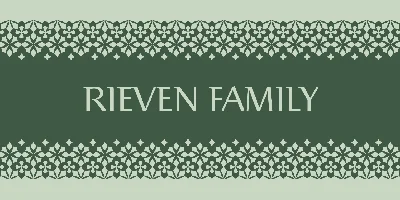
Rieven Font
Rieven Font – A sleek, modern sans-serif with geometric precision and minimalist elegance. Perfect for contemporary branding, editorial layouts, and digital interfaces, Rieven combines clean lines with subtle personality for professional yet distinctive designs.
Where Rieven Font Excels
This versatile typeface enhances:
Tech & Startup Branding – Clean logos, app interfaces, and corporate identities
Editorial Design – Magazine headlines, website typography, and print layouts
Minimalist Packaging – Luxury products, cosmetics, and modern retail branding
Web & UI Design – Readable yet stylish digital experiences
Why Choose Rieven Font?
This font delivers:
Pixel-perfect geometry for sharp on-screen rendering
Balanced proportions with subtle humanist touches
Multilingual support for global design projects
Multiple weights for dynamic visual hierarchy
Rieven Font Family
The complete professional package includes:
Rieven Thin
Rieven Light
Rieven Regular
Rieven Medium
Rieven Bold
Rieven Black
Matching italics for each weight
Rieven Font – Experience how precision typography elevates your modern designs.
Rieven Font – Where geometric purity meets functional beauty.